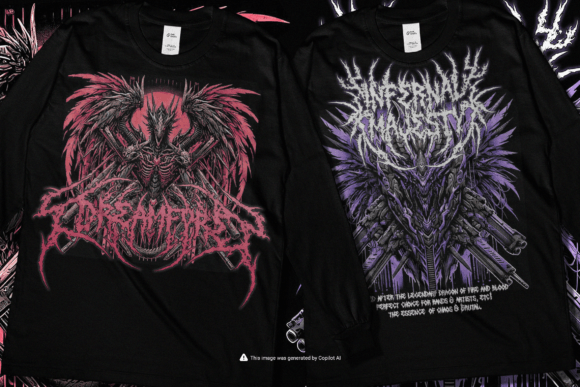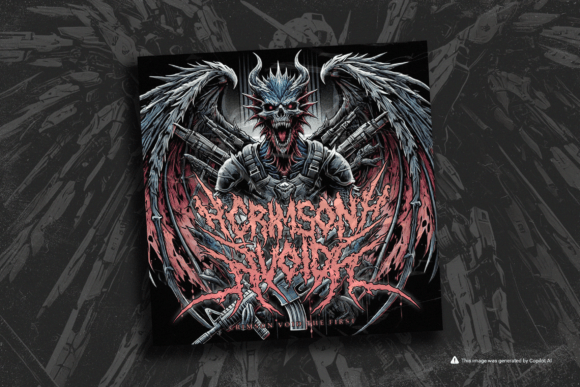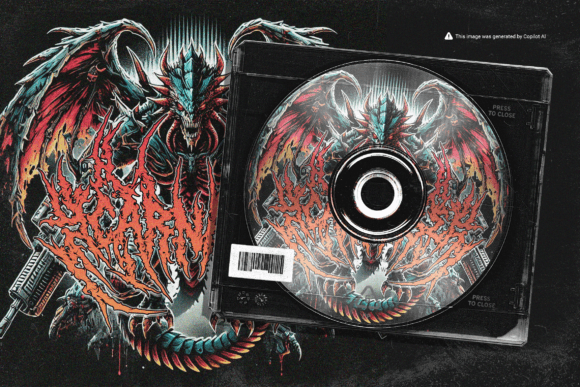
Balerion Font: A Brutal Death Metal Font for Logos & Posters
About the Balerion Font
Discover the charm of Balerion Font. This font is a perfect blend of modern aesthetics and classic appeal. Prepare to unleash the unrelenting power of Balerion, our newest font creation inspired by the raw intensity and dark allure of death metal. Named after the legendary dragon of fire and blood, Balerion captures the essence of chaos, brutality, and grandeur, making it the perfect choice for bands, artists, and designers who dare to embrace the darkness.
Balerion excels in large-scale applications such as impactful headlines, striking posters, and bold branding for products or events that demand attention. Its aggressive forms also work well for logotypes needing a powerful presence. However, its highly stylized nature makes it unsuitable for body text or user interfaces where readability is paramount; long blocks of Balerion would be difficult to read.
For optimal visual balance, pair Balerion with a clean sans-serif like Montserrat for contrast, or a more organic serif typeface such as Playfair Display for a touch of classic elegance offsetting its raw energy. Avoid pairing it with other highly stylized fonts, which could create visual clutter.
Balerion’s core personality is undeniably bold and rebellious. It projects power and aggression, making it ideal for projects related to heavy music, fantasy themes, or brands seeking to communicate strength and a non-conformist attitude.
Balerion Font Usage Examples
Balerion Font Example